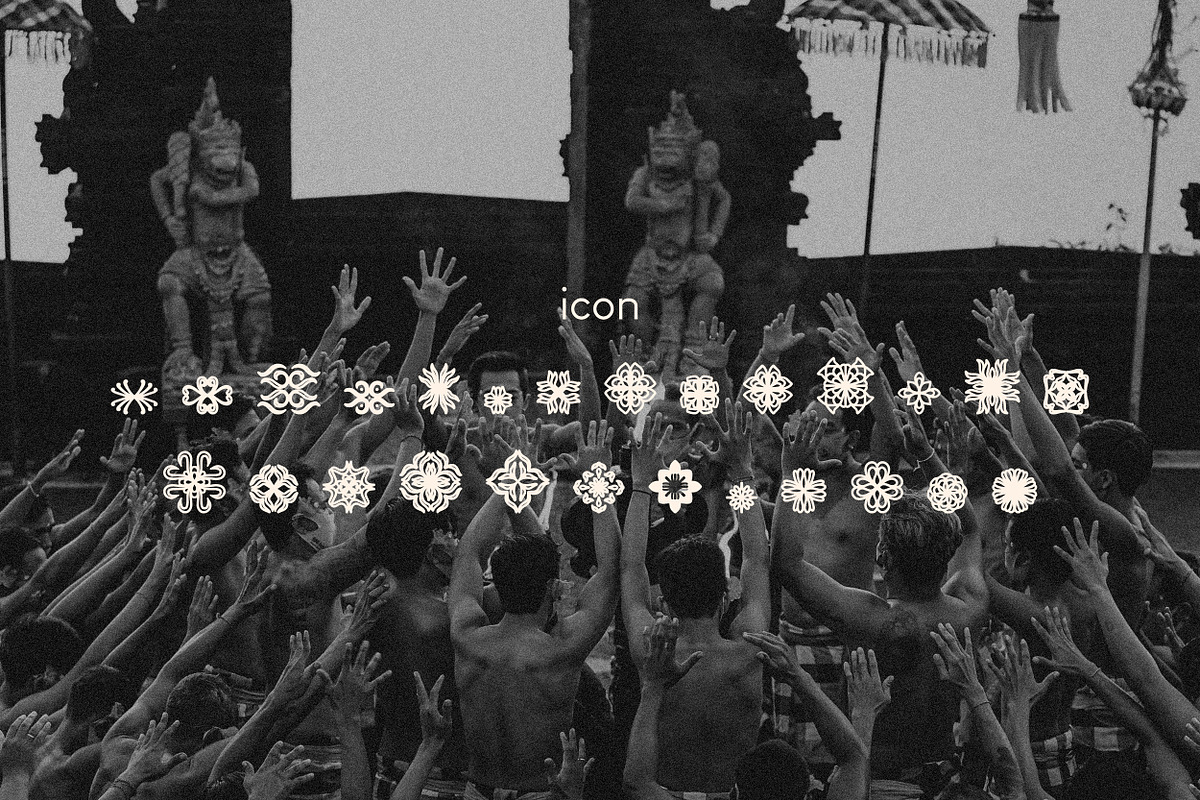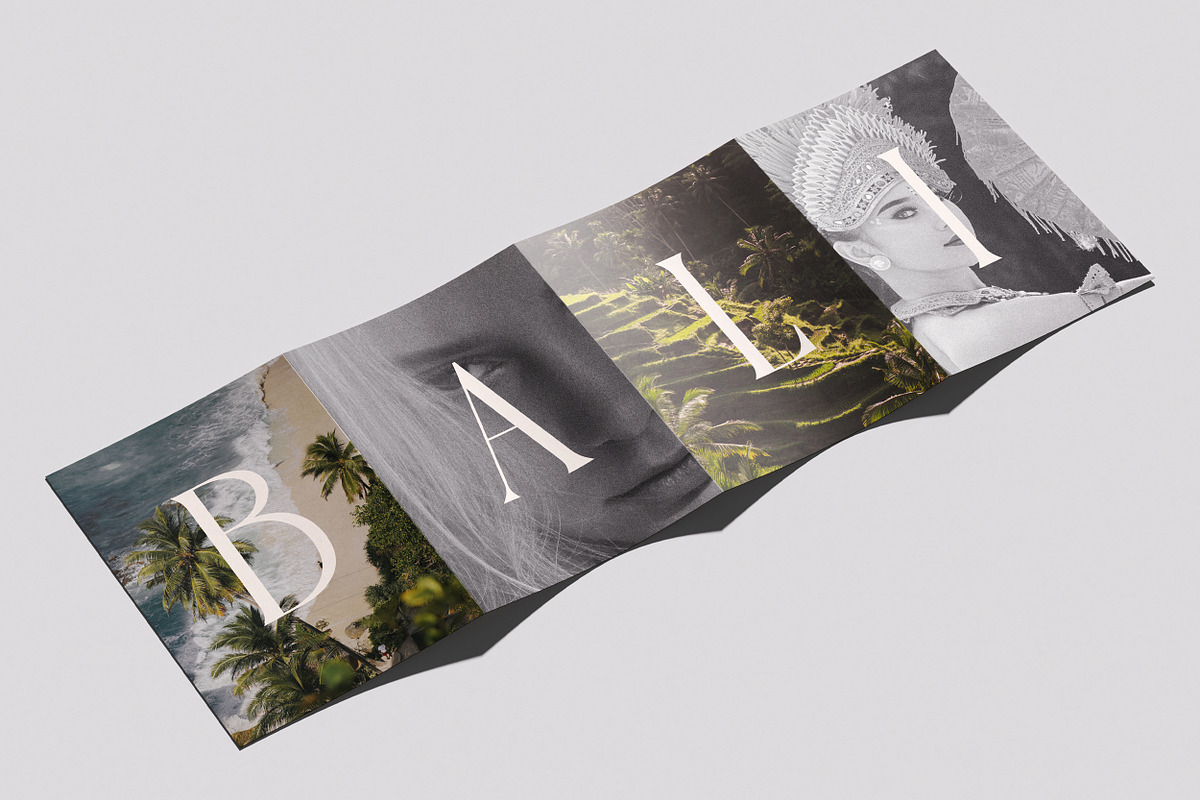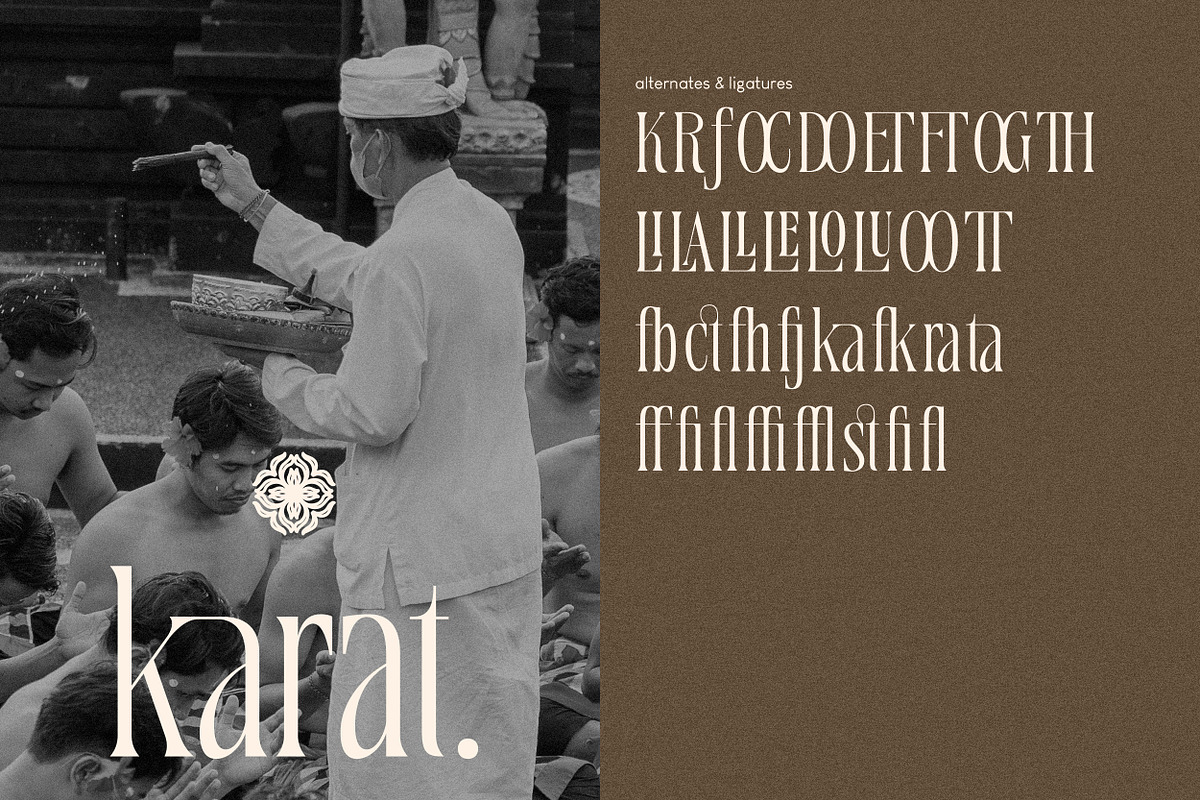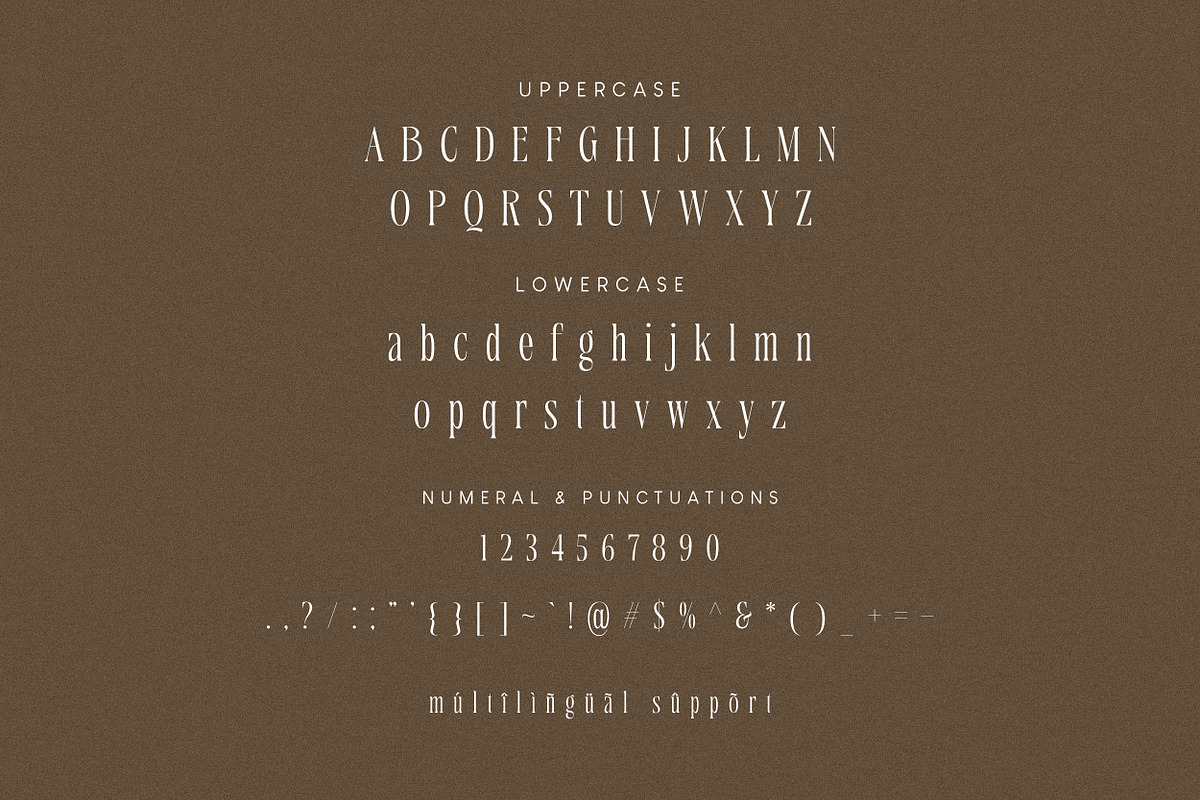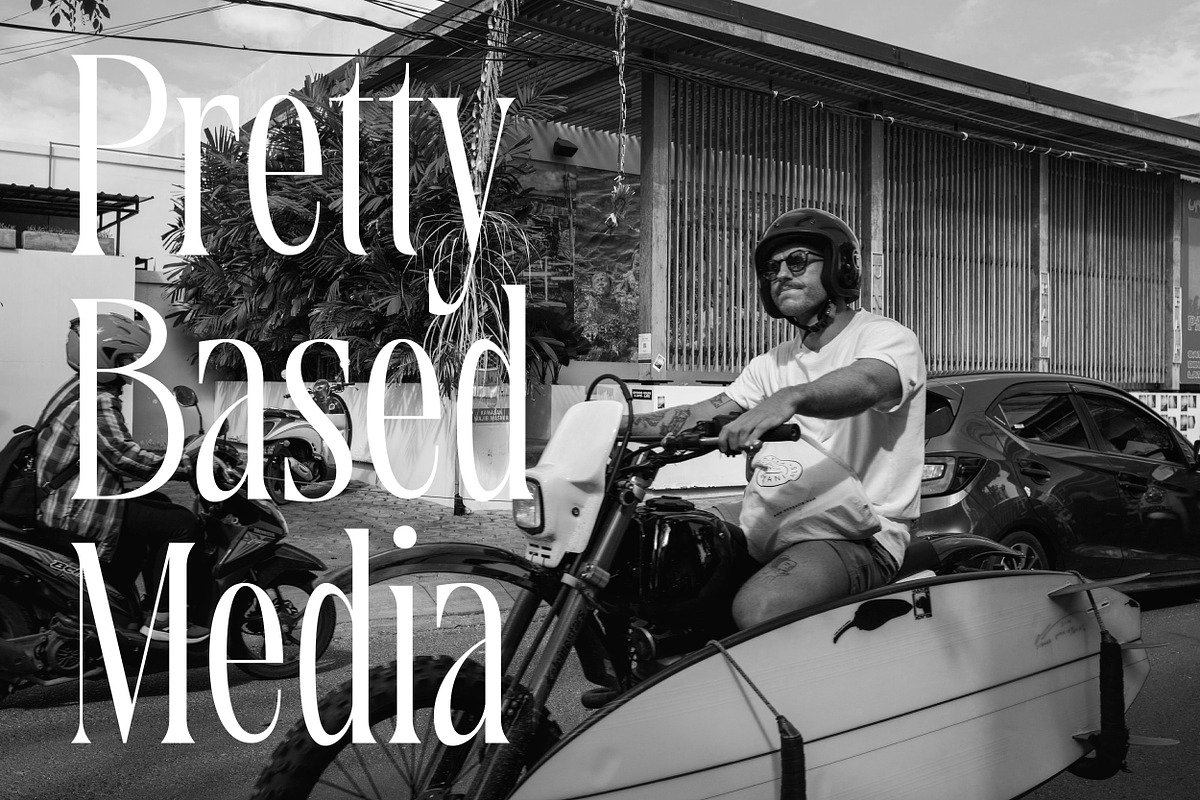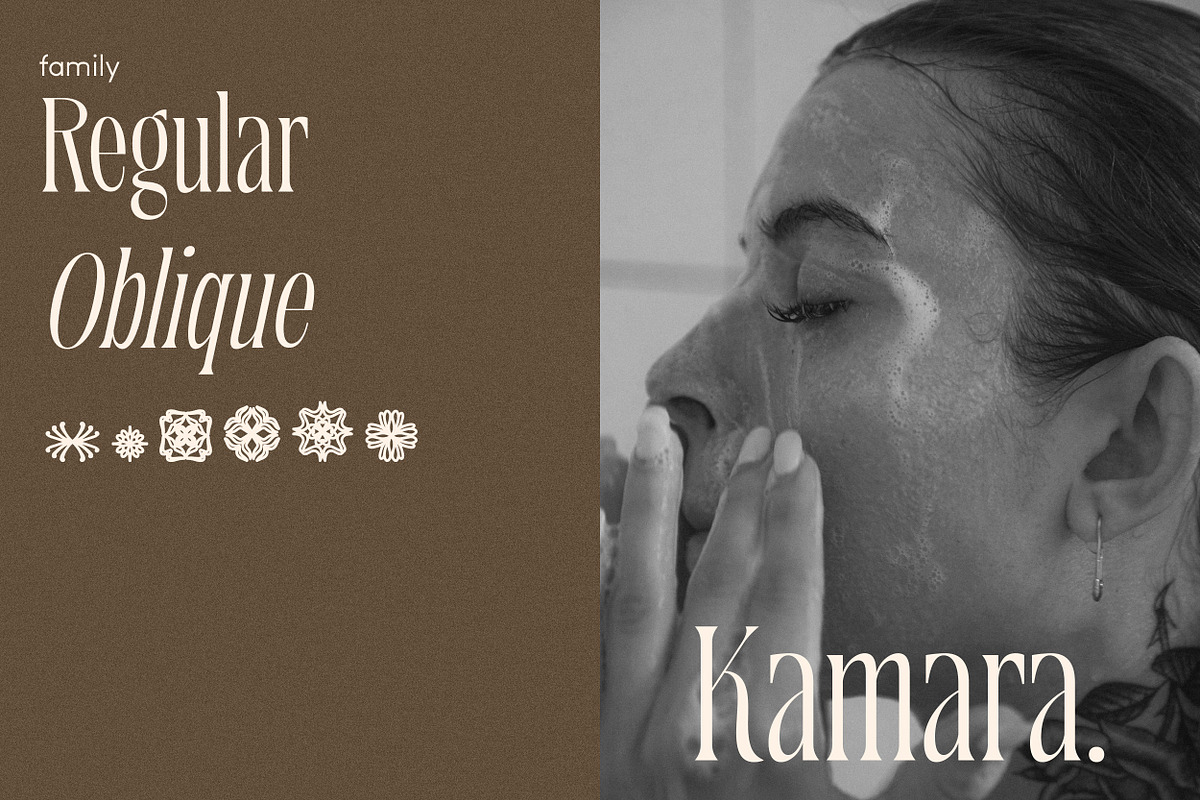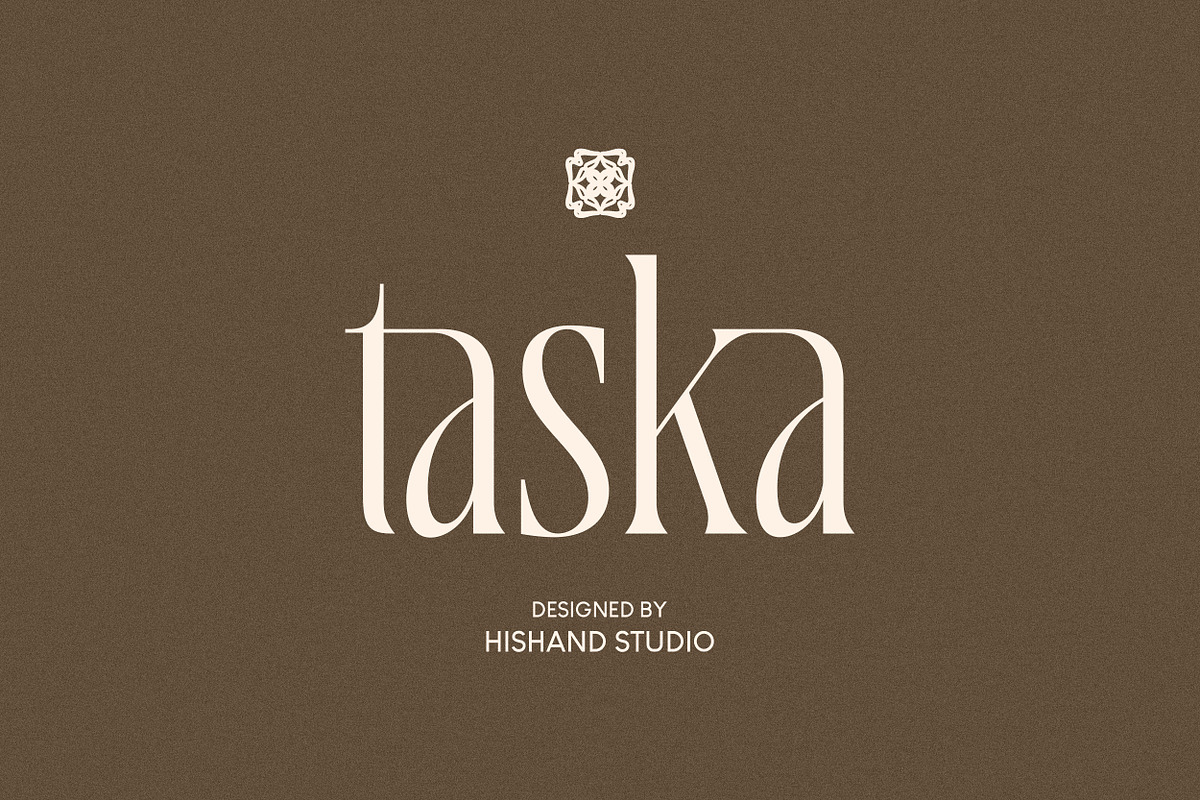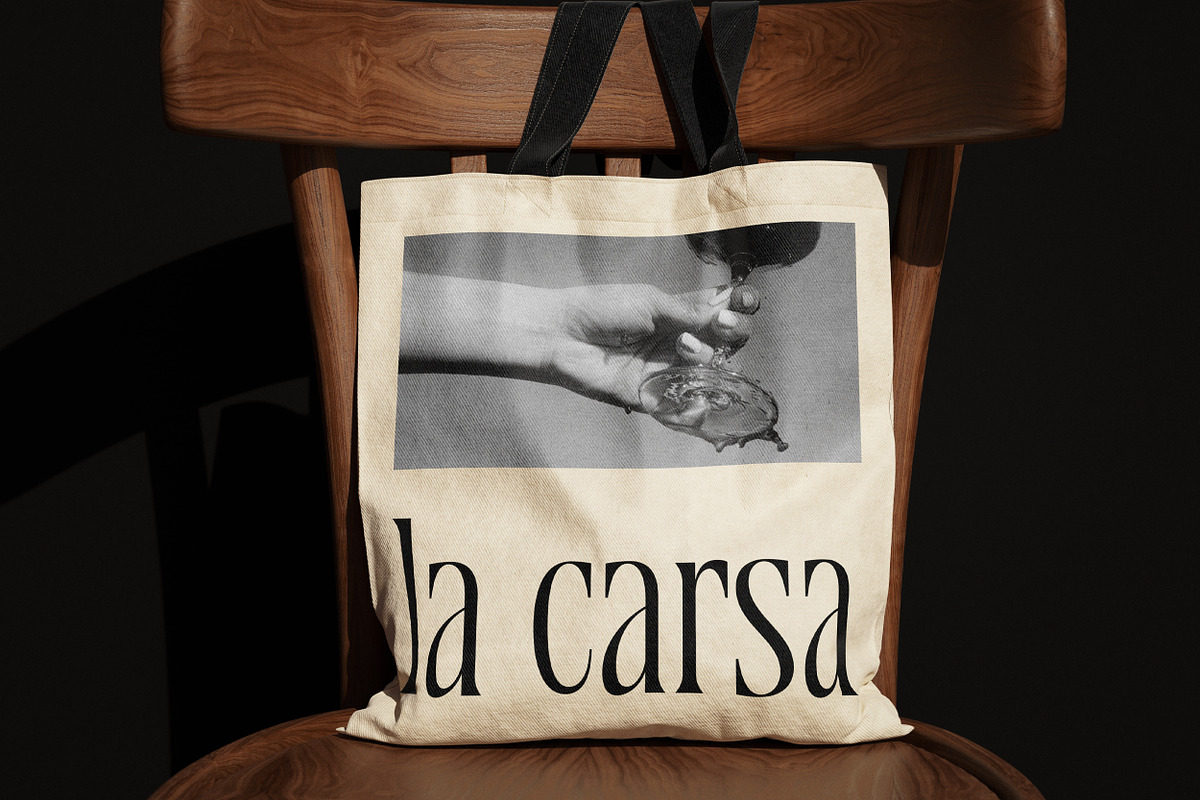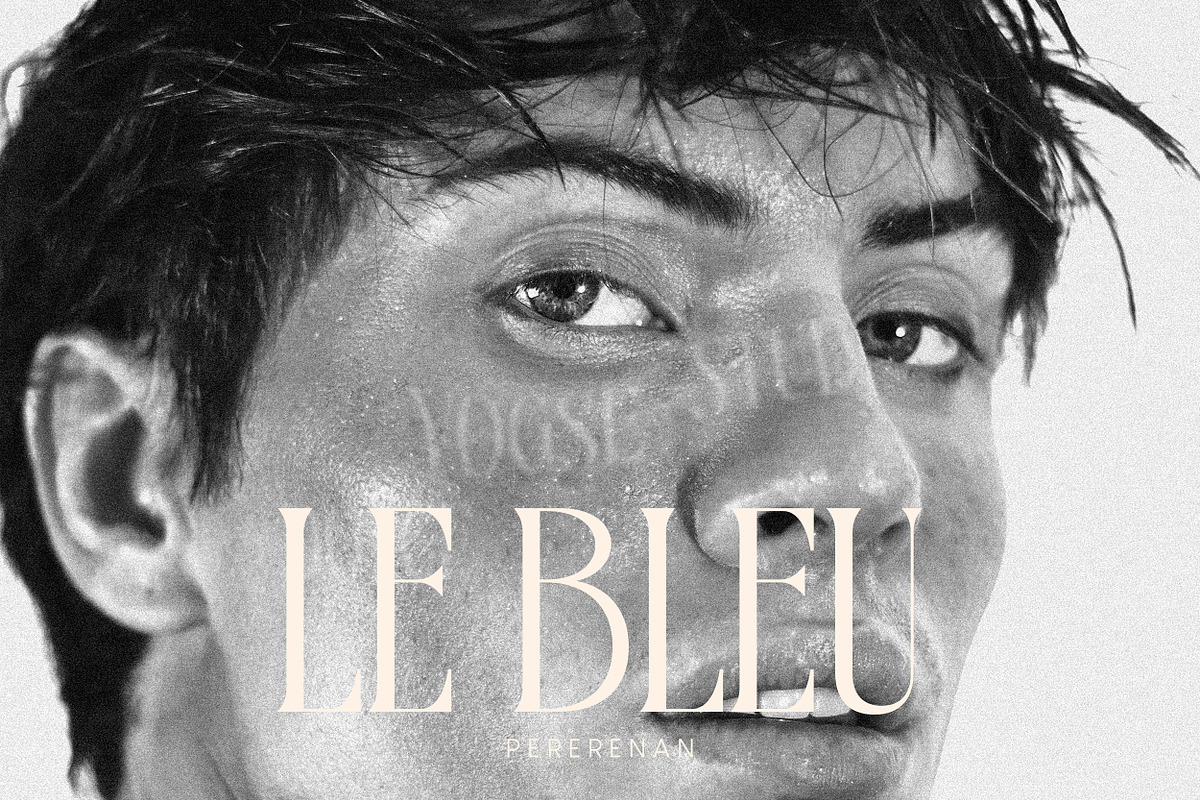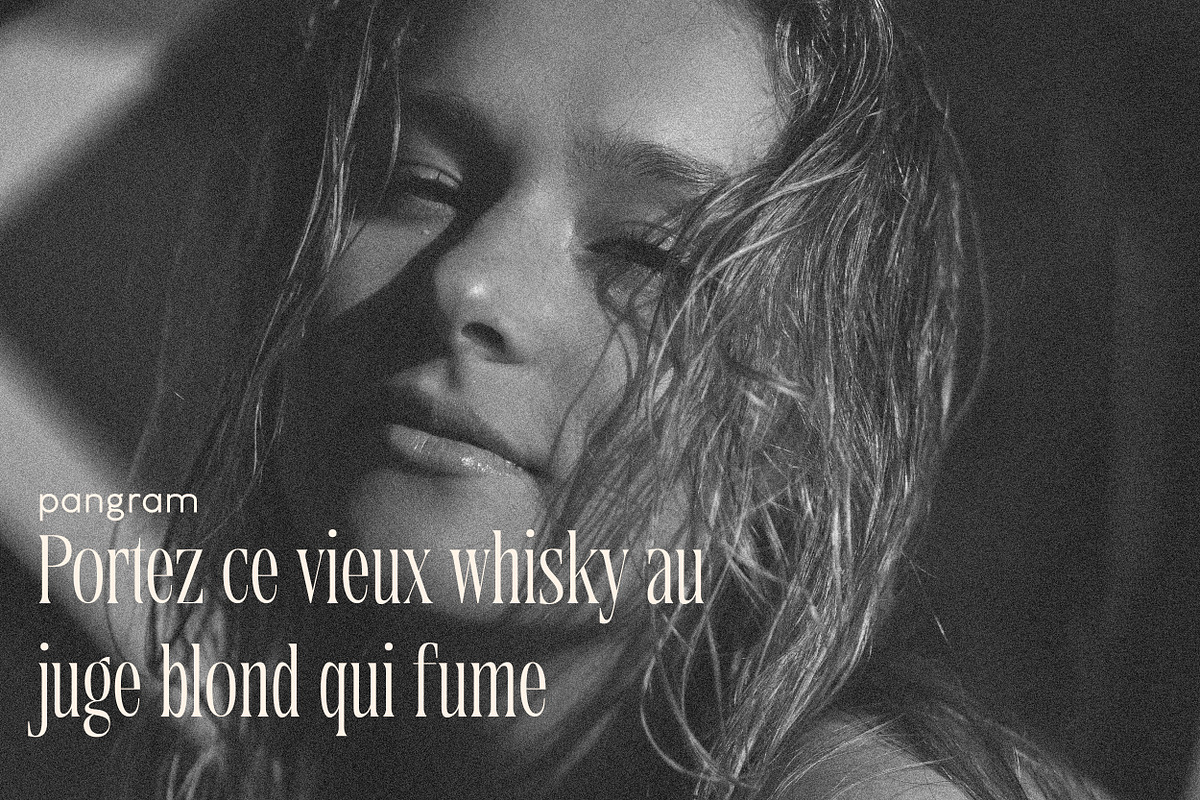
Taska Serif Display
Taska is a serif display font crafted for brands that speak in quiet confidence. Every curve and stroke carries a refined elegance, balancing sharp contrast with soft, flowing terminals that give each letter a sense of timeless sophistication.
Designed with high contrast strokes and delicate serifs, Taska brings a luxurious, editorial feel to any project. It's the kind of typeface that turns a simple logotype into a statement, perfect for fashion houses, beauty brands, boutique hotels, and premium packaging where every detail matters.
Taska performs beautifully at large sizes, making it ideal for logos, wordmarks, magazine headers, and brand identities that need to feel exclusive and polished. Its balanced proportions and graceful curves ensure legibility without losing personality, even in the most minimal designs.
From fashion labels to perfume brands to high end product lines, Taska delivers the aesthetic weight and timeless charm your brand deserves. Complete with :
ligatures
alternates
oblique